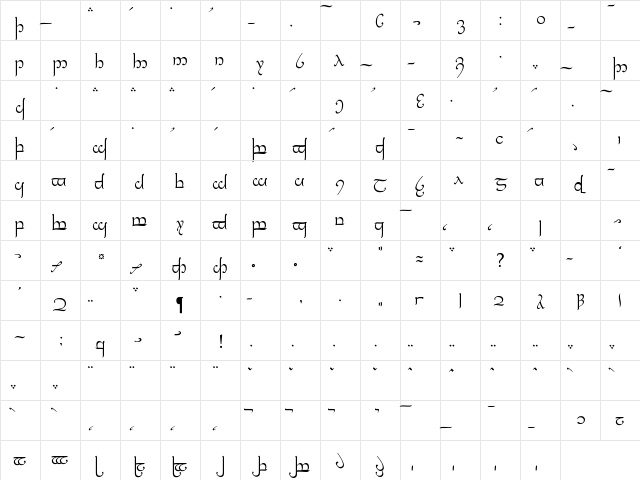
Tengwar Formal Regular
Design Context for Tengwar Formal Typeface
Tengwar Formal takes a measured approach to typography — its balanced proportions and neutral character make it a reliable workhorse for both digital and print work.